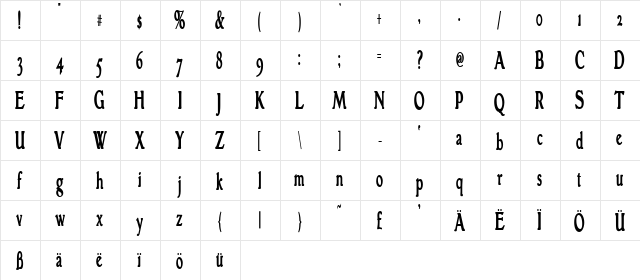
GranthamCondensed Bold
Design Context for GranthamCondensed Typeface
GranthamCondensed offers clean, dependable letterforms without strong stylistic allegiance, making it a practical choice for designers who need flexibility. Its bold stroke weight gives it real presence on the page. The condensed width makes it efficient for tight spaces without sacrificing legibility.
Pro Tip: Pair GranthamCondensed with a font of contrasting weight or personality to build a more expressive typographic hierarchy.